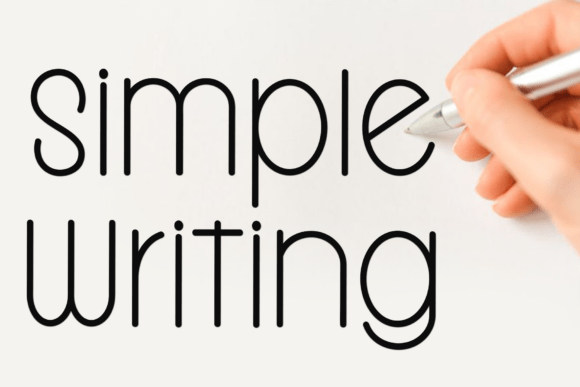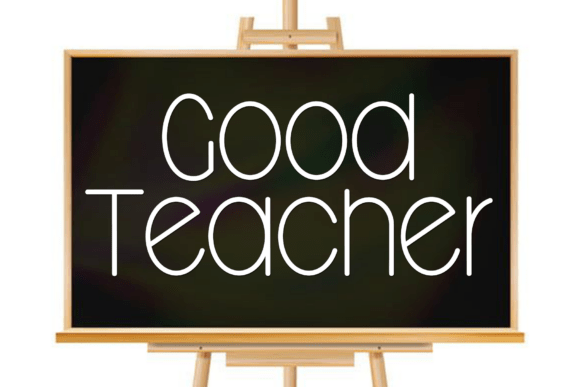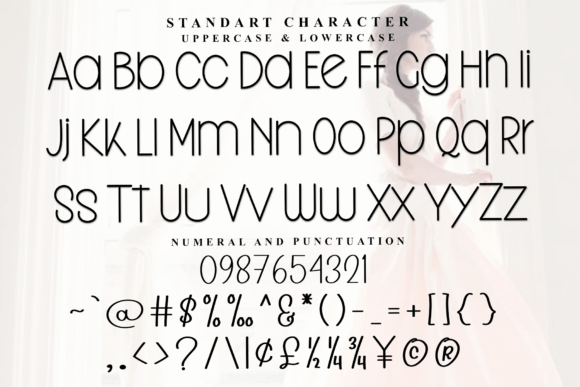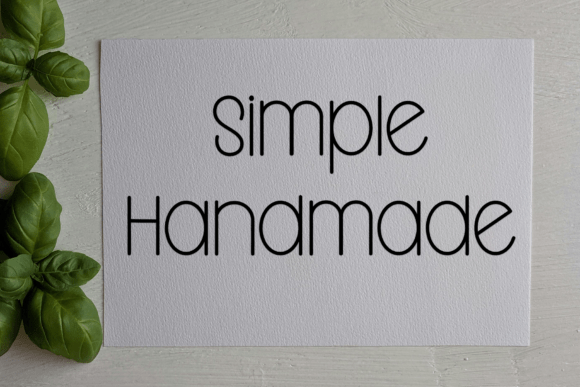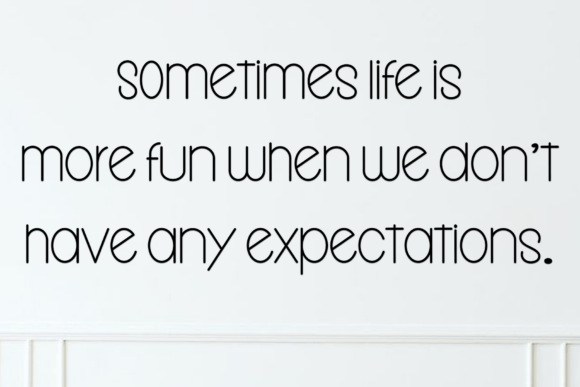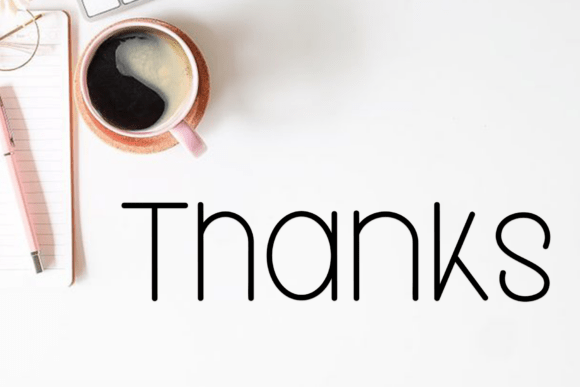
The Elusive Font: A Designer’s Quest for Elegance
I still remember the countless hours I spent searching for the perfect font for a client’s wedding invitation project. The design brief called for something sleek, sophisticated, and elegant, but my usual go-to fonts just didn’t cut it. That’s when I stumbled upon Cavier Dream, a gem of a font that exceeded my expectations in every way. In this article, I’ll share my experience with Cavier Dream, its features, and how to make the most of it in your designs.
An Honest Review of Cavier Dream
What I Love About Cavier Dream ✨
- ✅ Sleek and stylish sans serif design with a touch of luxury
- ✅ Rounded shapes and tall, thin lines for a soft modern look
- ✅ Sophisticated yet easy to read, perfect for branding, fashion, editorial layouts, and wedding design
- ✅ Works beautifully for both digital and print projects
While Cavier Dream is an exceptional font, there are a few things to keep in mind:
- 🤔 Limited availability of Cyrillic and non-English characters
- ⚠️ May not be the best choice for body text due to its elegant, refined nature
- Experiment with OpenType features, such as ligatures and stylistic alternates, to add an extra touch of elegance
- Although limited, you can still experiment with basic font styles and sizes to achieve an elegant look
The Inspiration Behind Cavier Dream
Cavier Dream was designed with the intention of creating a font that exudes luxury and sophistication. Its creator aimed to craft a typeface that would be both modern and elegant, with a touch of refinement. The result is a font that works beautifully for high-end branding, fashion, and editorial projects.
Q: What makes Cavier Dream suitable for wedding design?
A: Cavier Dream’s elegant and refined nature makes it perfect for wedding design, adding a touch of sophistication to invitations, programs, and other wedding materials.
Q: Can I use Cavier Dream for body text?
A: While Cavier Dream is easy to read, its elegant nature makes it more suitable for headlines, titles, and short paragraphs. For longer body text, a more traditional font might be a better choice.
Q: Does Cavier Dream support OpenType features?
A: Yes, Cavier Dream supports OpenType features, including ligatures, stylistic alternates, and glyphs, allowing you to add an extra touch of elegance to your designs.
Q: Is Cavier Dream suitable for digital projects?
A: Absolutely! Cavier Dream works beautifully for both digital and print projects, making it a versatile addition to your font library.